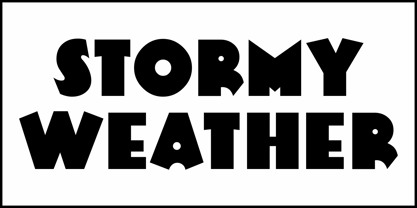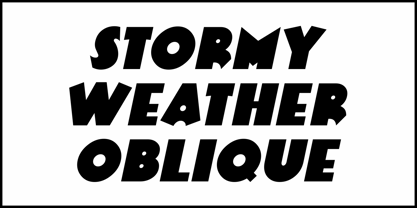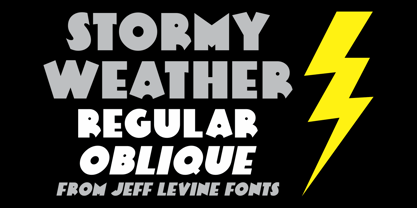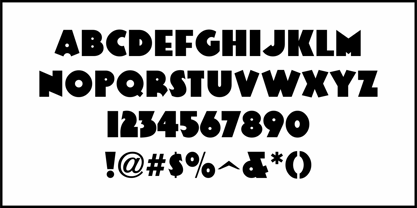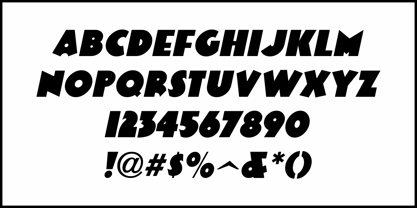
Stormy Weather JNL
by Jeff Levine
The Stormy Weather JNL Font Family was designed by Jeff Levine and published by Jeff Levine. Stormy Weather JNL contains 2 styles and family package options. More about this family
Hand lettering an ad for the [now lost] silent film drama "The Storm Daughter" in the March 15, 1924 issue of Motion Picture News inspired Stormy Weather JNL.
This ultra bold sans serif typeface with Art Nouveau influences is available in both regular and oblique versions.